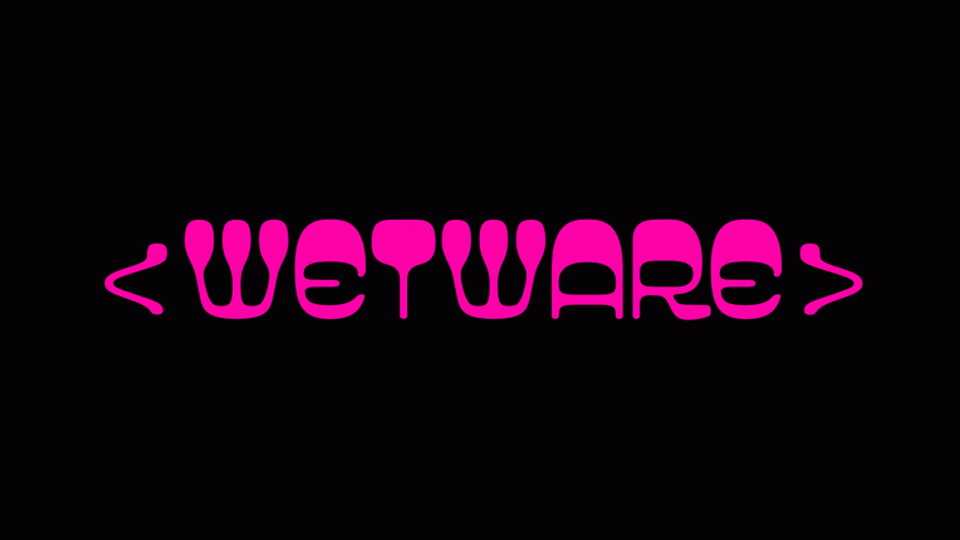
Download Wetware font, a fancy and groovy display typeface. Wetware is inspired mostly by the fascinating interface between dystopian and utopian science fiction, and using forms based on actual and imagined computer technology from the late 1960s.
Designer: Disaster Fonts